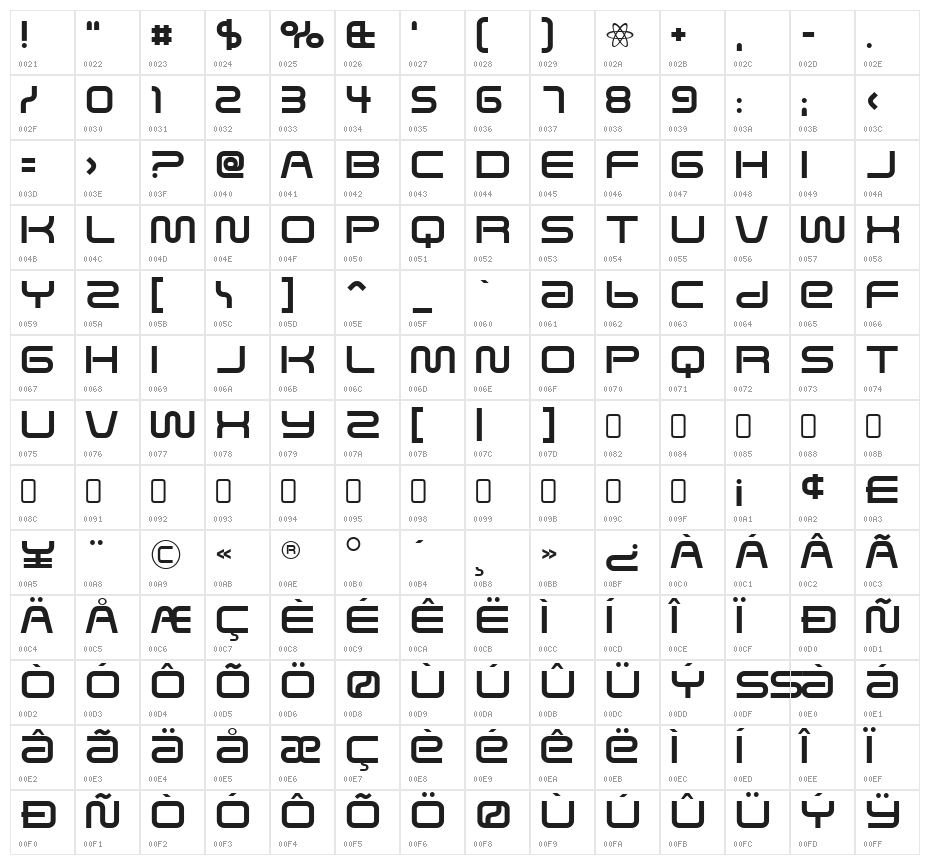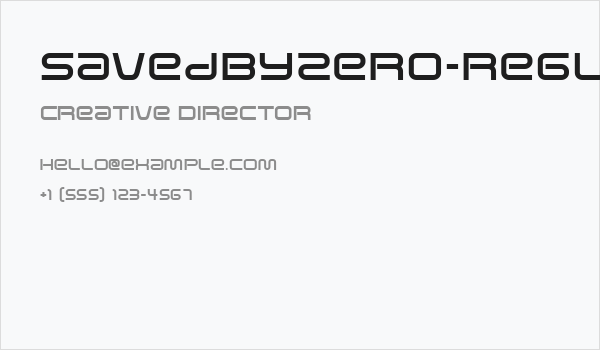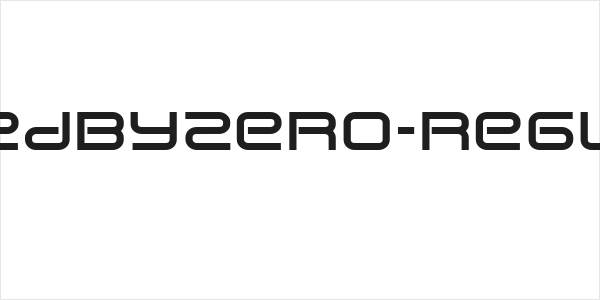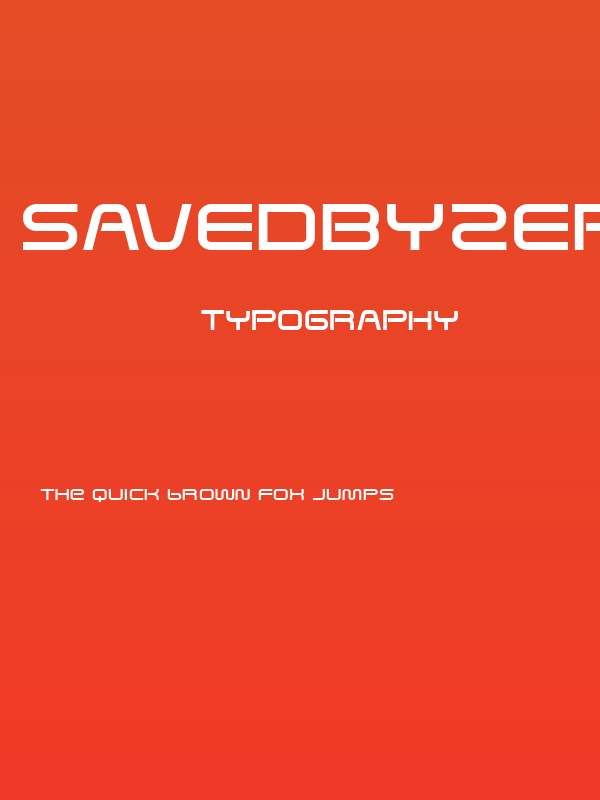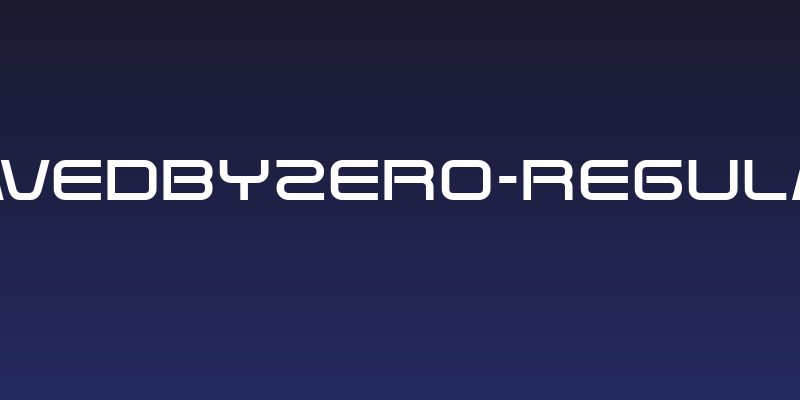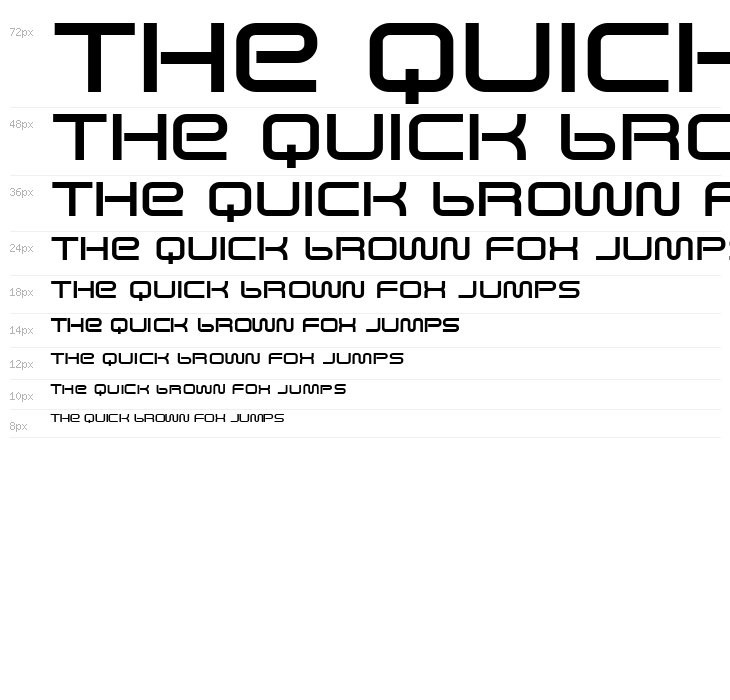
SavedByZero-Regular Font
SavedByZero-Regular Description
This font features a modern and futuristic design with a geometric and clean appearance. The characters are constructed with uniform stroke widths, giving it a consistent and balanced look. The uppercase letters are bold and rounded, while the lowercase letters maintain a similar style with slightly softer curves. The numerals are distinct and easy to read, matching the overall aesthetic of the typeface. Special characters are uniquely designed, adding a touch of creativity to the font. The overall style is sleek and contemporary, making it suitable for digital and print media.
| Use Case | Headlines, Logos, Digital Interfaces |
| Proposed Projects | Ideal for technology branding, digital interfaces, futuristic posters, and modern advertising campaigns. |